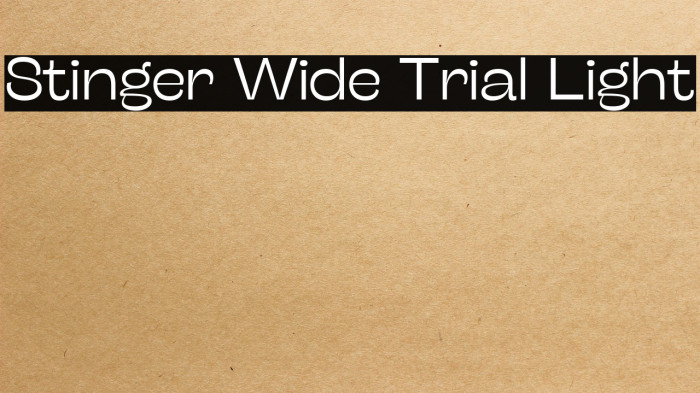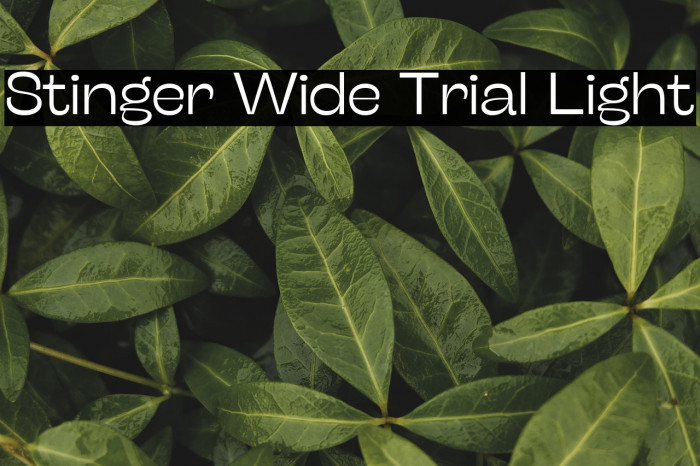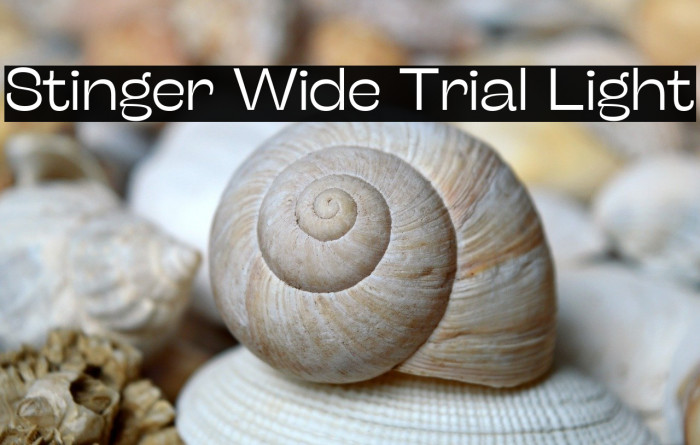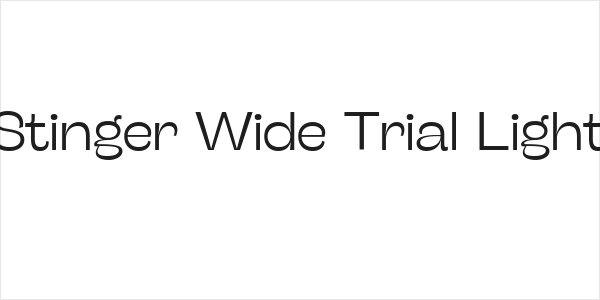
Stinger Wide Trial Light Font
Stinger Wide Trial Light Description
This font features a clean and modern sans-serif design with a wide stance, giving it a spacious and open feel. The characters are evenly spaced with a consistent stroke width, contributing to its legibility and contemporary aesthetic. The uppercase letters are bold and assertive, while the lowercase letters maintain a harmonious balance. The numerals and special characters are designed to complement the overall style, making it versatile for various applications. Its simplicity and clarity make it suitable for both digital and print media.
| Proposed Projects | Ideal for branding, advertising, web design, and editorial layouts where a modern and clean look is desired. |